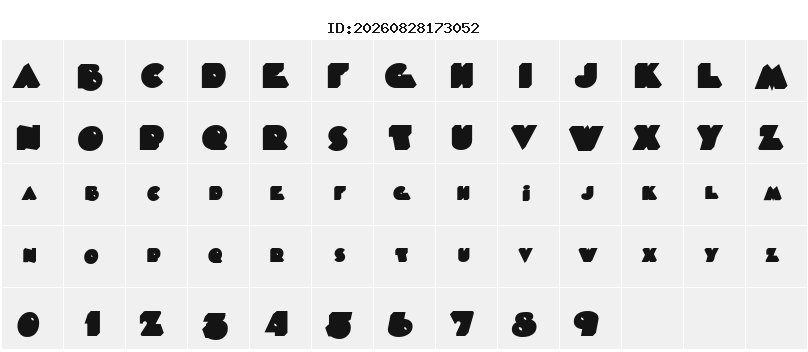
Timepiece 3D BackFill Preview
• Font Name: Timepiece 3D BackFill
• Full Font Name: Timepiece 3D BackFill
About Timepiece 3D BackFill.ttf
Timepiece 3D BackFill.ttf is a modern, elegant sans-serif font designed for ultimate readability and visual harmony. Perfect for branding, headlines, web design, and print materials.